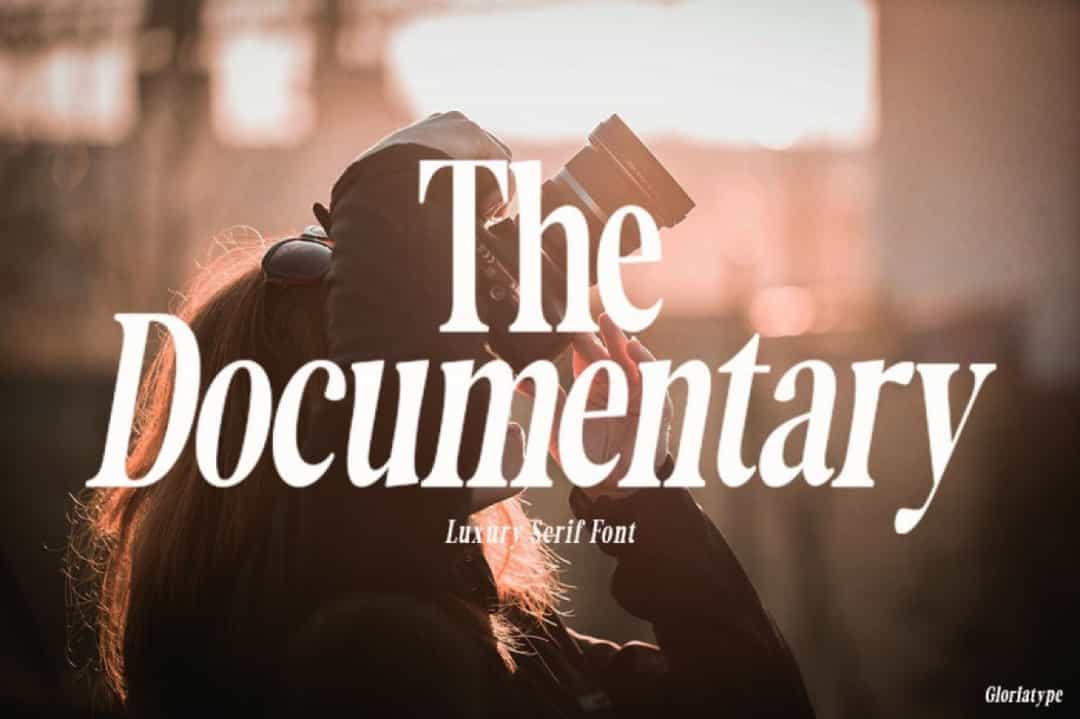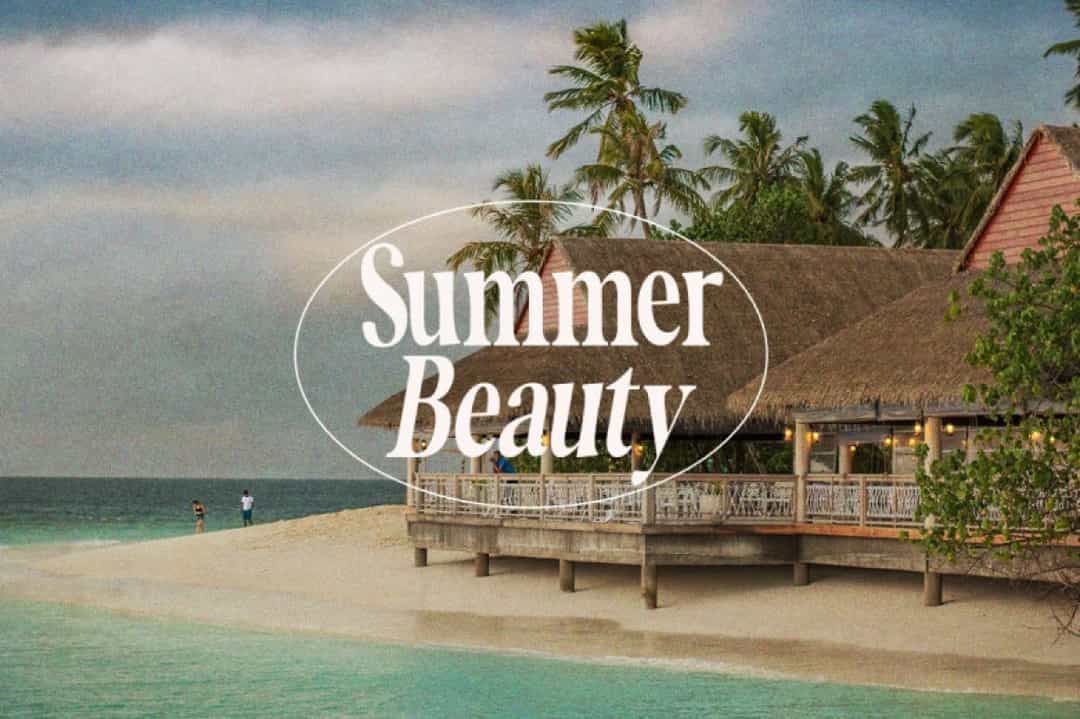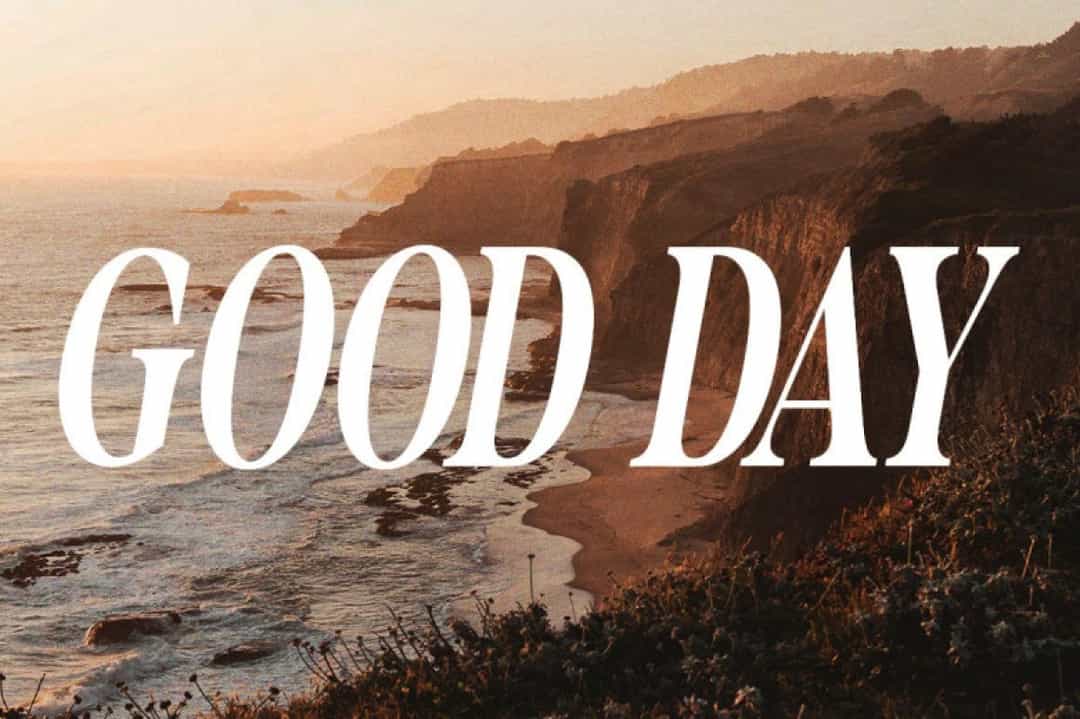
The Documentary is an elegant serif typeface that strikes an ideal balance between classic and contemporary designs, mixing both sans and serif styles in an innovative manner. Its timeless style makes The Documentary an excellent choice for striking and stylish designs; four weights provide plenty of customization possibilities while multilingual capabilities complete this impressive family of fonts.